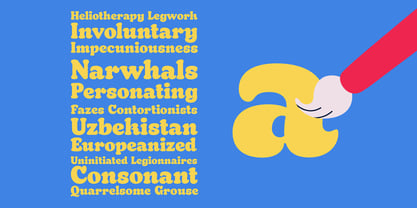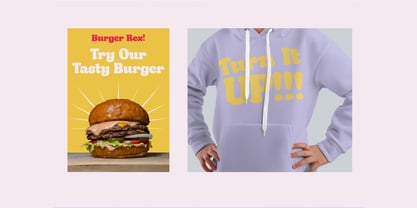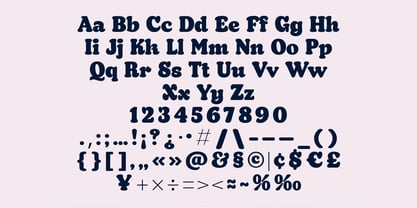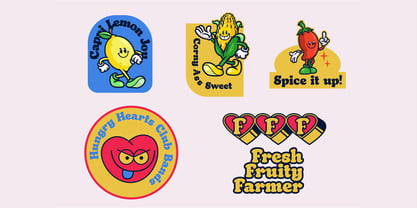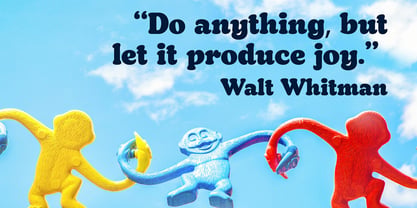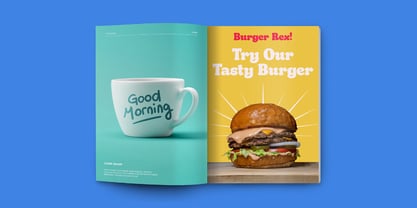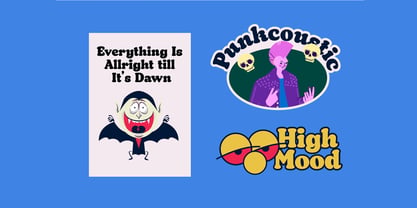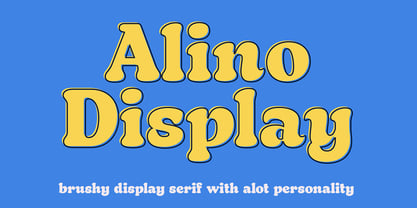
Alino
by PB Type
The Alino Font Family was designed by Ilham Prambudiharjo Raharjo and published by PB Type. Alino contains 1 styles. More about this family
Alino is a display serif typeface characterized by its brushy, expressive personality. With its artistic and dynamic strokes, Alino brings a handcrafted feel to any design. This typeface is particularly well-suited for a range of creative projects, from printed materials like posters, invitations, and editorial layouts, to branding and logo design. Its distinctive serif style combines traditional elegance with a modern, textured flair, making it a versatile choice for designers looking to add a unique, personal touch to their work. Whether used in headlines, packaging, or identity projects, Alino’s bold and stylish character ensures your message is both impactful and memorable.
Designers: Ilham Prambudiharjo Raharjo
Foundry: PB Type